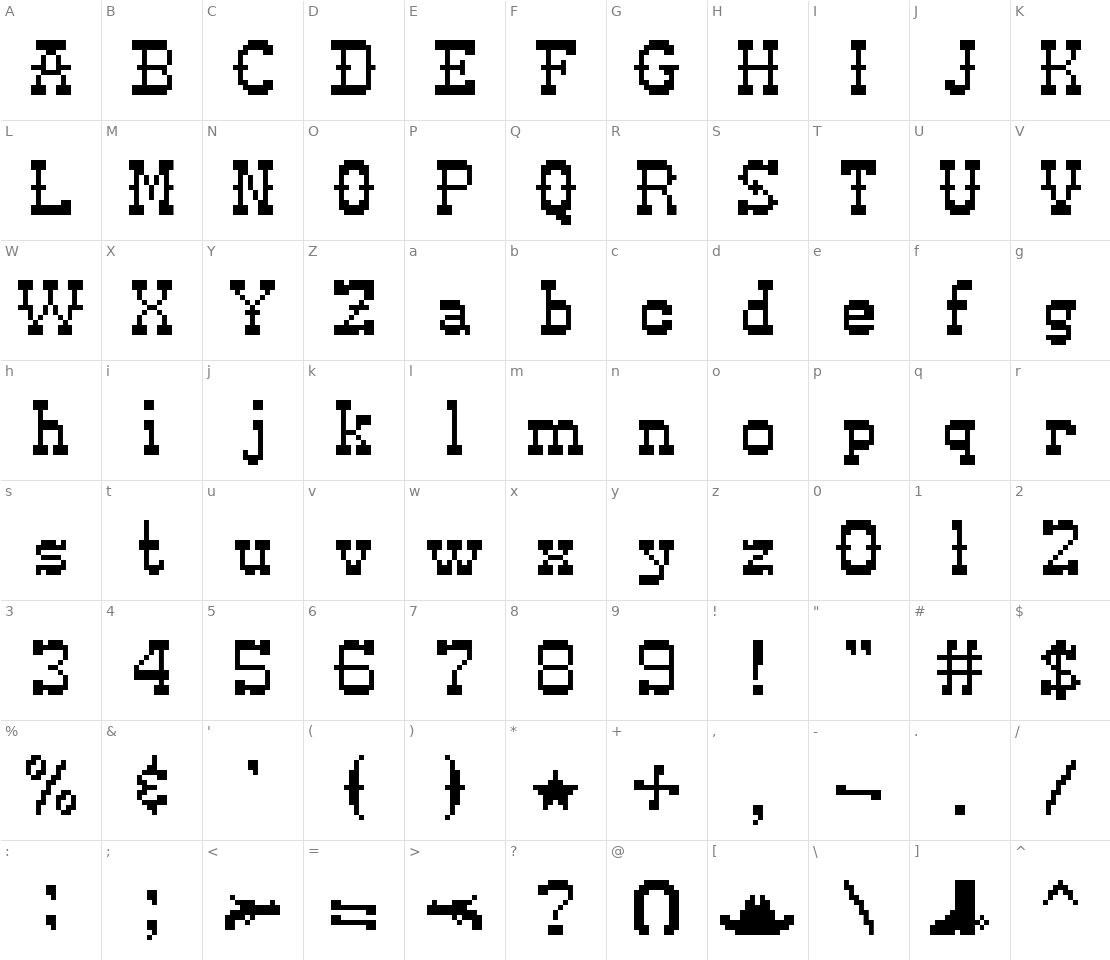
Pixel Western
by Mirz123
Pixel Western by Mirz123 mashes up two very specific aesthetics: the chunky, blocky grid of 8-bit pixel art and the dusty, saloon-door flavor of Old West lettering. The monospace construction keeps everything locked to a rigid grid, giving it the feel of a frontier-themed retro game or title screen. Best used at large sizes for headlines, game UI, or poster work where the novelty of the mashup can land.